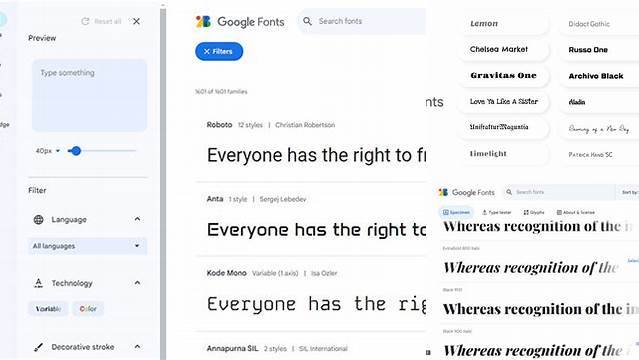
Effortless Google Fonts Integration In CSS: A Step-by-Step Guide
Hey guys! Ever wondered how to make your website look stunning with those fancy fonts you see everywhere? Well, using Google Fonts in CSS is your golden ticket. It's easier than you think, and I'm here to break it down into bite-sized chunks. This guide will walk you through everything, from picking the perfect font to making it shine on your site. We'll cover all the bases, so you can ditch the default fonts and give your website a serious style upgrade. Ready to dive in and transform your site's typography game? Let's go!
H2: What Are Google Fonts and Why Use Them?
So, what exactly are Google Fonts? Simply put, they're a vast library of free, open-source fonts hosted by Google. They're designed to be easily integrated into your website, making it a breeze to choose and use beautiful typography. Why should you bother with Google Fonts in CSS? Well, for starters, they're free! That's right, you don't have to shell out any cash to access a massive collection of fonts. Then there's the sheer variety. From classic serifs to modern sans-serifs, elegant scripts to playful display fonts, there's a font for every project imaginable. This means you can find fonts that perfectly match your brand's personality and design aesthetic. Using Google Fonts also gives you a performance boost. Google's servers are optimized for delivering these fonts quickly, ensuring your website loads smoothly and looks great without slowing things down. Plus, because the fonts are hosted on Google's servers, you don't have to worry about storing and managing font files yourself. This simplifies your workflow and saves you precious time. The fonts are also web-optimized, meaning they are designed to look great on screens of all sizes. Finally, Google Fonts are super easy to use. With a few simple steps, you can integrate them into your website and start enjoying beautiful typography right away. Choosing Google Fonts is a no-brainer if you want a professional-looking website that's easy to maintain and loads quickly. It's an excellent way to boost your site’s visual appeal and user experience, attracting visitors and leaving a lasting impression.
H3: Benefits of Using Google Fonts for Web Design
Using Google Fonts for your web design projects comes with a ton of benefits. First off, the cost is a huge win. As I mentioned before, Google Fonts are completely free! This makes them an accessible option for everyone, from individual bloggers to large businesses. Accessibility is another major advantage. Google Fonts are designed to be accessible to people with disabilities. They offer a variety of fonts that are easy to read and use, ensuring your website is inclusive. Then, there's the vast selection of fonts. With hundreds of options to choose from, you can find the perfect font to match your brand's style and personality. There's a font for every mood and message, whether you're aiming for a classic, modern, or playful look. Performance is also crucial. Google's servers are optimized for delivering fonts quickly. This ensures your website loads faster and provides a better user experience. A faster website means happier visitors and better SEO! Ease of integration is another key benefit. Integrating Google Fonts in CSS is incredibly simple. You can do it with a few lines of code. Google provides clear instructions, making the process straightforward for beginners. Moreover, Google Fonts are legally safe to use. Since they're open-source, you don't have to worry about licensing issues or copyright infringement. You can use them on your personal and commercial projects without any concerns. Lastly, Google Fonts are regularly updated and maintained. Google is constantly adding new fonts and improving existing ones, ensuring you have access to the latest and greatest typography options. This way, you keep up with the latest design trends, and keep your website looking fresh and modern.
H2: How to Choose the Right Google Font for Your Website
Choosing the right font can make or break your website's design. It's not just about finding a font that looks pretty; it's about finding a font that complements your content and resonates with your audience. So, how do you go about choosing the right Google Font? First, define your brand's personality. What message do you want to convey? Are you aiming for a professional, playful, or modern vibe? Your chosen font should align with your brand's identity. Next, consider your content. What kind of content will you be displaying? If you have a lot of body text, choose a font that's easy to read and comfortable on the eyes. For headings and titles, you can go for a more decorative or eye-catching font. Think about readability. Is the font easy to read at different sizes and on various devices? A well-chosen font enhances readability, improving the user experience. A font that's beautiful but hard to read will frustrate your visitors. Experiment with different combinations. Try pairing different fonts together to see which ones work well together. You can use tools like Google Fonts' pairing suggestions or explore font combinations on other websites. Consider the different font styles. Does the font have different weights (e.g., regular, bold, italic)? Make sure the font offers the variations you need for your design. Using different font weights adds visual interest and helps organize your content. Test your chosen fonts. Preview your website with the fonts you've selected. Make sure they look good on all screen sizes and browsers. See if the fonts work well with your website's color scheme and overall design. Finally, don't be afraid to change your mind. You might find that the first font you chose isn't the right fit. That's okay! Experiment with different options until you find the perfect match for your website.
H3: Understanding Font Families and Weights
When choosing Google Fonts in CSS, understanding font families and weights is key to making informed design decisions. A font family is a group of fonts that share a similar design, such as Arial or Times New Roman. Within a font family, there are different variations, known as font weights. Font weights refer to the thickness of the characters within a font. Common font weights include normal (or regular), bold, and various intermediate weights like light, semibold, and extra bold. Using different weights within the same font family adds visual hierarchy and improves readability. For example, you might use bold for headings and normal for body text. When selecting a Google Font, pay attention to the range of available weights. Some fonts offer a wide variety of weights, while others only offer a few. The more weights a font offers, the more flexibility you'll have in your design. Knowing how font families and weights work allows you to create a more visually appealing and well-organized website. By using different weights and styles (like italics), you can highlight important information and guide the reader's eye through your content. Additionally, consider the context in which you'll be using the font. A font that works well for headlines might not be suitable for body text. A good body text font should be legible at small sizes, while headlines can be more decorative. Experiment with different font families and weights to find what works best for your website's specific needs. Understanding the differences between various font families will also help you make better decisions. Serif fonts (like Times New Roman) have small lines at the end of the strokes, while sans-serif fonts (like Arial) do not. Serif fonts are often used for body text because they can improve readability, while sans-serif fonts often work well for headlines and headings.
H2: Step-by-Step Guide: Embedding Google Fonts in Your CSS
Alright, guys, let's get down to the nitty-gritty of embedding Google Fonts in CSS. It's easier than you think! Here's a step-by-step guide: First, head over to the Google Fonts website. Browse through the vast library and find the font (or fonts) you want to use. Click on the plus sign (+) next to each font to add it to your selection. A panel will appear at the bottom of the screen, showing your selected fonts. Click on this panel to view your selection. In the panel, you'll see two main options for embedding the font: <link> and @import. The <link> method is generally recommended as it can improve website loading speed. To use the <link> method, copy the code provided in the panel. Paste this code into the <head> section of your HTML document, ideally before your stylesheet link. Next, copy the CSS rules to specify the font in your CSS file. Apply the font to the relevant elements in your stylesheet. For example, to apply the font to all paragraphs, you would use the font-family property in your CSS. If you prefer the @import method, copy the @import code provided in the panel. Paste this code at the top of your CSS file, before any other CSS rules. Then, use the same CSS rules for specifying the font in your CSS as you would with the <link> method. You can apply the font to specific elements (like headings or paragraphs) or apply it globally to your entire website. Once you've added the font and applied the CSS, save your HTML and CSS files. Then, refresh your website in your browser to see the new font in action. If you have any caching enabled on your website, you may need to clear the cache to see the changes. Remember to test your website on different devices and browsers to ensure the font displays correctly everywhere. With these easy steps, you can effortlessly integrate Google Fonts in CSS and elevate your website's design.
H3: Using the <link> Method for Google Fonts
Using the <link> method is one of the best ways to embed Google Fonts in CSS and is generally the recommended approach. This method is straightforward and often results in faster website loading times. Let's break down how to use the <link> method step-by-step. First, go to the Google Fonts website and select the font(s) you want to use. Add the font(s) to your selection by clicking the plus sign (+) next to each font. A panel will appear at the bottom of the screen, showing your selected fonts. Click this panel. Copy the <link> code provided. It should look something like this: `<link rel=